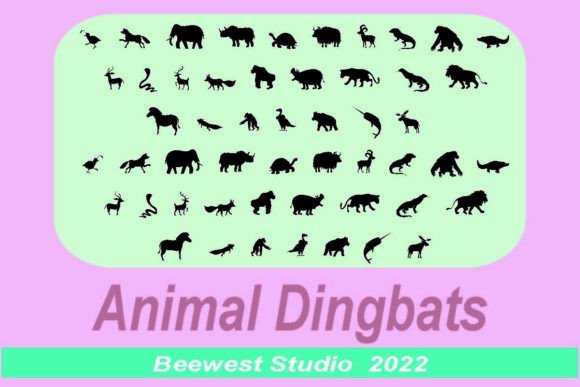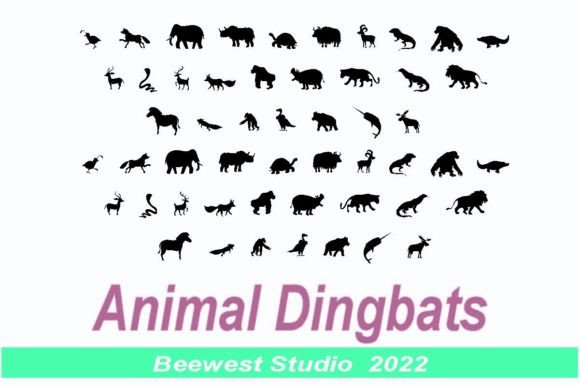
Meet Animal Font: The Cute and Adorable Dingbats Font for All Occasions
Are you tired of using the same old fonts for your designs, crafts, and presentations? Look no further! Introducing Animal Font, a delightful dingbats font that is sure to capture the hearts of designers, crafters, and anyone who loves all things cute and adorable. In this article, we’ll dive into the world of Animal Font and explore its features, uses, and benefits.
What is Animal Font?
Animal Font is a unique dingbats font that features a wide range of cute and adorable animal designs. From cats and dogs to birds and bears, this font has it all. Each character in the font is carefully crafted to bring a smile to your face, making it perfect for a variety of design projects.
Features of Animal Font
- Wide range of animal designs: With Animal Font, you’ll have access to a vast library of adorable animal designs that can be used in various contexts.
- Cute and playful style: The font’s playful and cute style makes it perfect for designs that require a touch of whimsy and fun.
- Scalable: The font is scalable, ensuring that it looks great in various sizes and resolutions.
Uses of Animal Font
Animal Font is a versatile font that can be used in a variety of design projects, including:
- Crafts: Add a personal touch to your craft projects, such as scrapbooking, card making, and journaling.
- Digital design: Use Animal Font in your digital designs, such as social media graphics, blog posts, and website headers.
- Presentations: Add a touch of fun and personality to your presentations, making them more engaging and memorable.
- Greeting cards: Create adorable greeting cards for special occasions, such as birthdays, holidays, and weddings.
Benefits of Using Animal Font
So, why should you choose Animal Font for your design projects? Here are just a few benefits:
- Adds a touch of personality: Animal Font allows you to add a personal touch to your designs, making them more unique and engaging.
- Time-saving: With a wide range of pre-designed animal characters, you’ll save time and effort in creating your own designs from scratch.
- Fun and playful: The font’s playful style is sure to bring a smile to your face and make your designs more enjoyable to work on.
Tips for Using Animal Font
Here are some tips to help you get the most out of Animal Font:
- Experiment with different colors: Try out different colors and color combinations to add depth and interest to your designs.
- Mix and match characters: Combine different animal characters to create unique and playful designs.
- Use it in combination with other fonts: Pair Animal Font with other fonts to create visually appealing and dynamic designs.
| Font Name | Animal Font |
| Author | wisudyantoro |
In conclusion, Animal Font is a delightful dingbats font that is sure to become your go-to font for all occasions. With its wide range of cute and adorable animal designs, ease of use, and versatility, it’s perfect for designers, crafters, and anyone who loves all things cute and playful. So why not give it a try and see how it can add a touch of personality and fun to your design projects?
Whether you’re a seasoned designer or a crafty DIY enthusiast, Animal Font is sure to bring a smile to your face and inspire your creativity. So go ahead, get creative, and have fun with Animal Font!